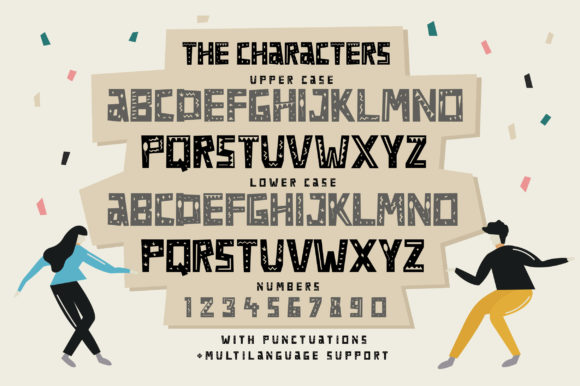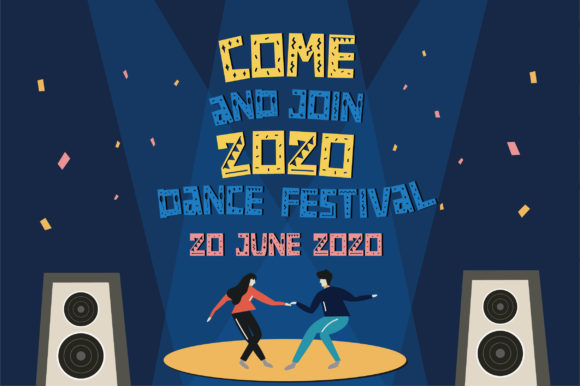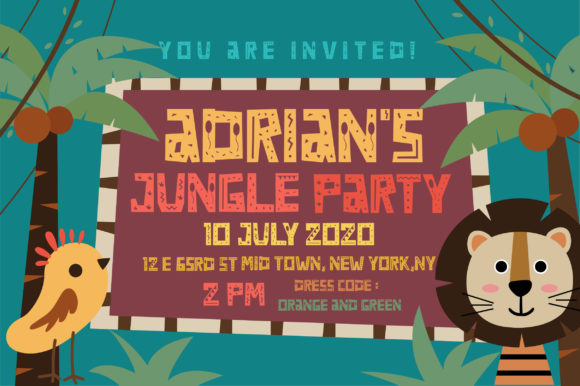
Introduction to Party Festival Font
Do you remember the excitement of planning a birthday party as a kid? The hours spent deciding on decorations, games, and the perfect cake design? As a designer, you’re no stranger to the thrill of bringing a creative project to life. Whether it’s a school craft project or a client’s special event, you know how a well-chosen font can elevate the entire design.
That’s where the Party Festival Font comes in – a vibrant and playful display font that’s perfect for adding a celebratory feel to any design. With its fun and energetic vibe, it’s no wonder designers are turning to this font for their creative projects. Whether you’re looking for a free download or a high-quality design resource, the Party Festival Font is a valuable addition to any designer’s toolkit.
Key Features of Party Festival Font
- High-quality design for creative projects: Party Festival Font is a unique and vibrant font perfect for any party or festival-themed design project.
- Transparent background: This font has a transparent background, allowing you to easily overlay it on any image or background.
- Unique characteristics: Party Festival Font features bold and colorful letters, with intricate details and patterns, making it a standout design element for any creative project.
- Perfect for party and festival-themed designs: As the name suggests, Party Festival Font is specifically designed for party and festival-themed designs, making it an ideal choice for designers working on such projects.
Honest Review: Party Festival Font
I recently stumbled upon the Party Festival Font and I’m excited to share my thoughts on it. As a designer, I’m always on the lookout for unique and high-quality design resources to elevate my creative projects.
- High-quality design: The Party Festival Font is well-designed and looks great on any background.
- Transparent background: This makes it easy to use in a variety of design projects.
- Limited character set: The font may not have the full range of characters I need for some projects.
- Not ideal for serious or formal projects: The font’s playful vibe may not be suitable for all types of projects.
Overall, I think the Party Festival Font is a great addition to any designer’s collection. While it may have some limitations, it’s a fun and high-quality font that’s perfect for creative projects. If you’re looking for a unique font to add some personality to your designs, I’d definitely recommend checking it out.
The Party Festival Font is perfect for designing invitations, posters, social media graphics, and other creative projects that require a festive and playful tone. Its high-quality design makes it an excellent choice for any project that requires a professional touch.